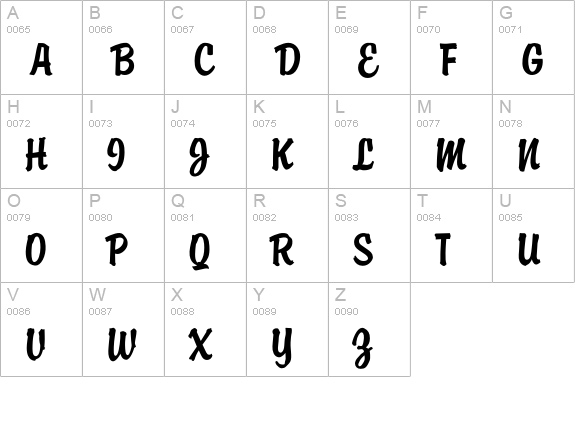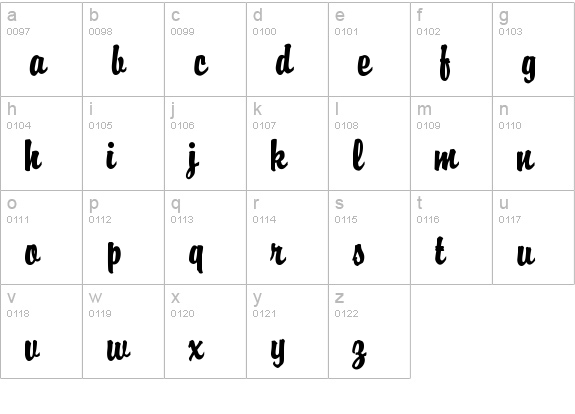
BrodyFont Font Details
BrodyFont is a modern and versatile typeface that combines sleek lines with a touch of elegance. This font is perfect for a wide range of design projects, from logo design to website headers and everything in between. Its clean and contemporary look makes it stand out while remaining highly readable. The best part? BrodyFont is available for free download at FontsMarket.com. Yes, you read that right - this high-quality font can be yours at no cost, allowing you to elevate your designs without breaking the bank. Don't miss out on the opportunity to add this stylish and sophisticated font to your collection today!